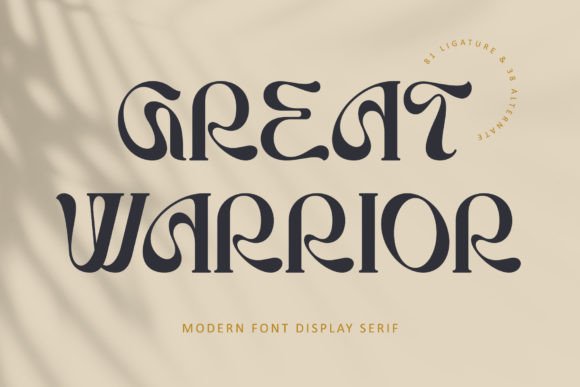
Introducing Great Warrior Font: A Modern Serif Display Font with a Unique and Classy Style
In the world of typography, fonts play a crucial role in conveying the tone and personality of a brand or design. A well-chosen font can elevate a project from ordinary to extraordinary, making it essential to select a font that is both visually appealing and versatile. This is where the Great Warrior font comes in – a modern serif display font that boasts a unique and classy style, perfect for a wide range of projects.
What Makes Great Warrior Font Stand Out?
Great Warrior font is a modern serif display font that exudes a cool and vintage look, making it an excellent choice for designers seeking to add a touch of sophistication to their projects. Its unique and classy style sets it apart from other fonts, allowing it to stand out in a crowded design landscape. Whether you’re working on branding, crafting, stickers, sublimation, wedding invitations, advertising, vintage mood boards, logotype, packaging, titles, editorial design, or any other project, Great Warrior font is an excellent choice.
Key Features of Great Warrior Font
- Modern Serif Display Font: Great Warrior font is a modern serif display font that features elegant lines, refined curves, and a sophisticated overall aesthetic.
- Unique and Classy Style: The font’s unique and classy style makes it perfect for designers seeking to add a touch of elegance to their projects.
- Cool and Vintage Look: Great Warrior font boasts a cool and vintage look that is sure to capture the attention of your audience.
- PUA Encoded: The font is PUA encoded, which means you can easily access all of the glyphs and swashes, giving you maximum creative flexibility.
- Versatile: Great Warrior font is suitable for a wide range of projects, including branding, crafting, stickers, sublimation, wedding invitations, advertising, vintage mood boards, logotype, packaging, titles, editorial design, and many more.
Use Cases for Great Warrior Font
Great Warrior font is an incredibly versatile font that can be used in a variety of contexts. Here are some examples of projects where Great Warrior font would be an excellent choice:
- Branding: Use Great Warrior font to create a sophisticated brand identity that sets your business apart from the competition.
- Crafting: Add a touch of elegance to your crafting projects with Great Warrior font, perfect for creating custom labels, packaging, and more.
- Stickers: Create eye-catching stickers with Great Warrior font that are sure to capture the attention of your audience.
- Sublimation: Use Great Warrior font to create stunning sublimation designs that showcase your creativity and style.
- Wedding Invitations: Add a touch of sophistication to your wedding invitations with Great Warrior font, perfect for formal and informal weddings alike.
- Advertising: Use Great Warrior font to create eye-catching advertisements that grab the attention of your target audience.
- Vintage Mood Boards: Create stunning vintage mood boards with Great Warrior font that evoke a sense of nostalgia and sophistication.
- Logotype: Use Great Warrior font to create a unique and memorable logotype that represents your brand or business.
- Packaging: Add a touch of elegance to your packaging designs with Great Warrior font, perfect for luxury brands and products.
- Titles: Use Great Warrior font to create stunning titles for your books, movies, or other creative projects.
- Editorial Design: Add a touch of sophistication to your editorial designs with Great Warrior font, perfect for magazines, newspapers, and online publications.
Why Choose Great Warrior Font?
There are many reasons why Great Warrior font stands out from the crowd. Here are just a few:
- Unique Style: Great Warrior font boasts a unique and classy style that sets it apart from other fonts.
- Versatility: The font is incredibly versatile, making it suitable for a wide range of projects.
- Ease of Use: Great Warrior font is PUA encoded, making it easy to access all of the glyphs and swashes.
- High-Quality Design: The font is designed with high-quality and attention to detail, ensuring that it looks great in any context.
In conclusion, Great Warrior font is an excellent choice for designers seeking a modern serif display font with a unique and classy style. Its cool and vintage look, versatility, and ease of use make it perfect for a wide range of projects. Whether you’re working on branding, crafting, stickers, sublimation, wedding invitations, advertising, vintage mood boards, logotype, packaging, titles, editorial design, or any other project, Great Warrior font is sure to elevate your design to the next level.